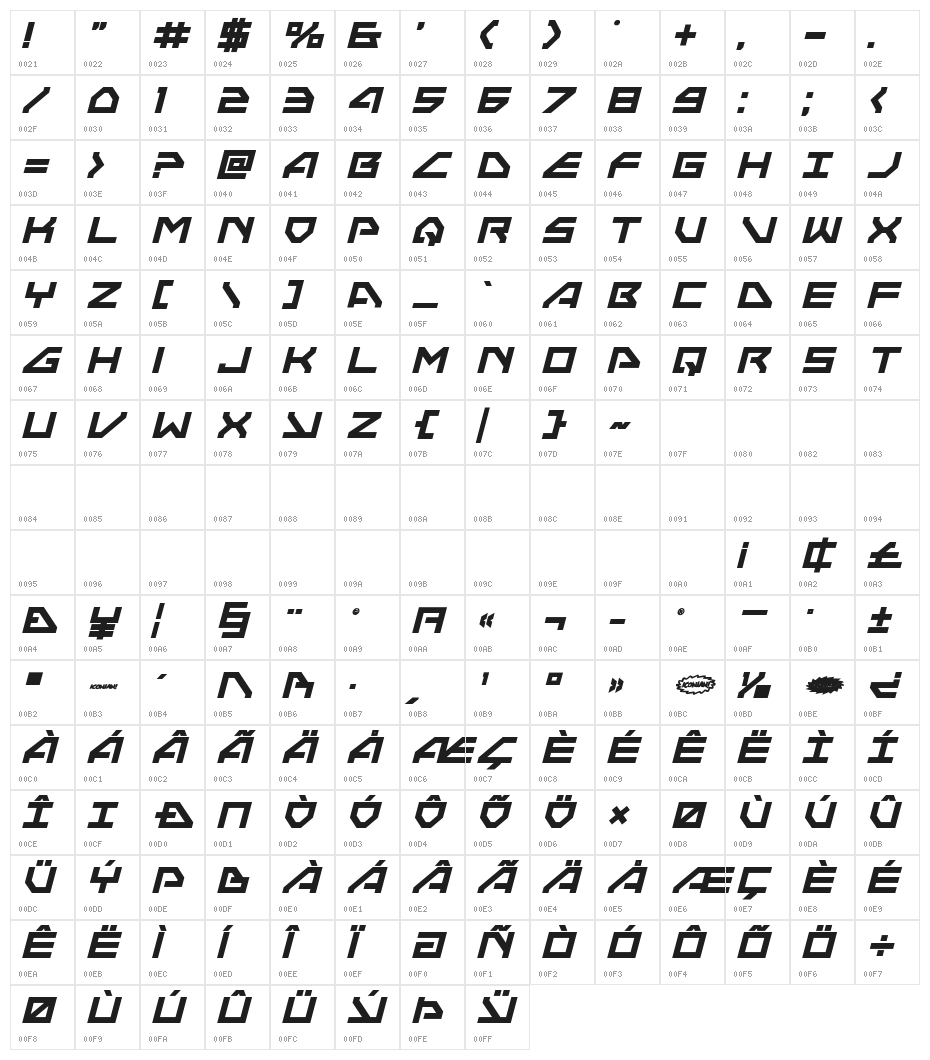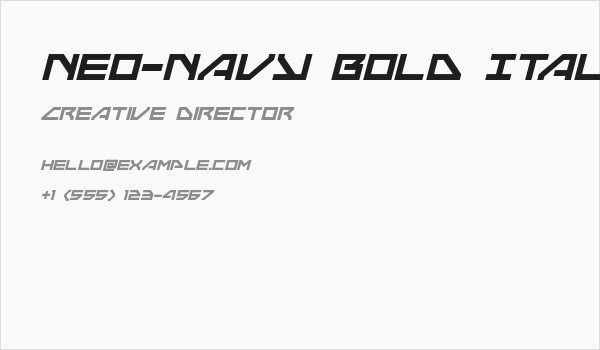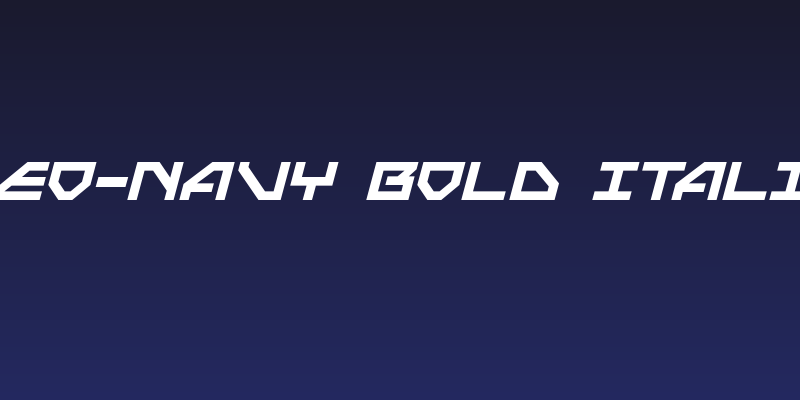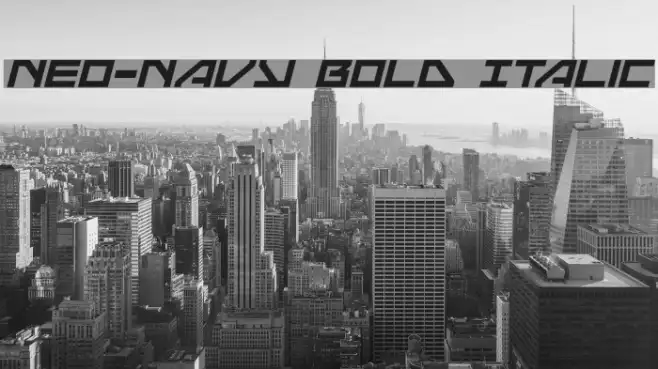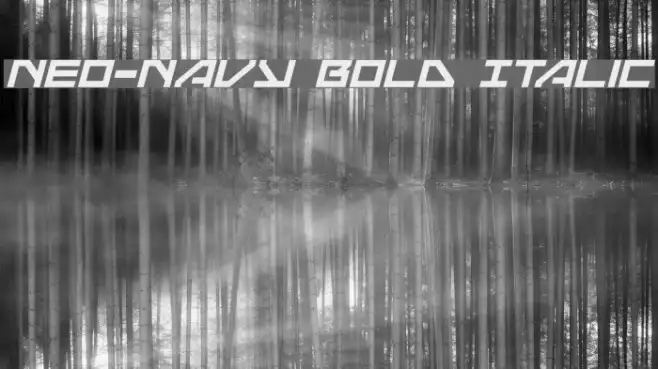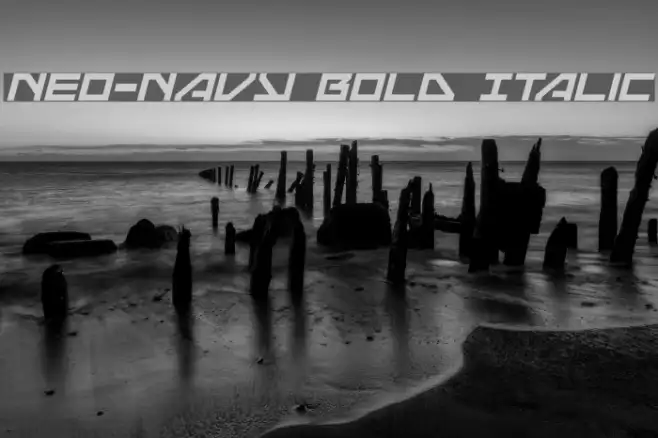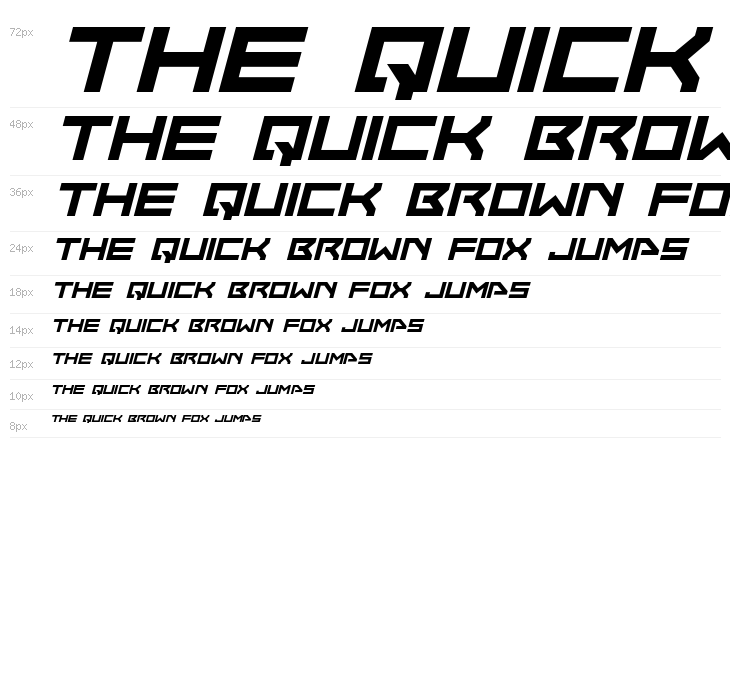
Neo-Navy Bold Italic Font
Neo-Navy Bold Italic Description
This font features a bold and italicized style with a futuristic and angular design. The characters are sharply defined with a consistent slant, giving it a dynamic and forward-moving appearance. The uppercase and lowercase letters maintain a uniform width, while the numbers and special characters are designed to match the overall aesthetic. The font's geometric shapes and clean lines make it suitable for modern and tech-oriented projects. Its boldness ensures high visibility, making it ideal for impactful headlines and attention-grabbing designs.
NEO-NAVY-BOLD-ITALIC UPPERCASE
NEO-NAVY-BOLD-ITALIC LOWERCASE
NEO-NAVY-BOLD-ITALIC OTHER CHARS
| Proposed Projects | Ideal for technology branding, sci-fi themed posters, video game titles, and modern advertising campaigns. |